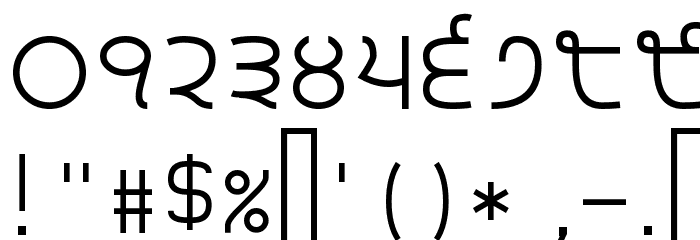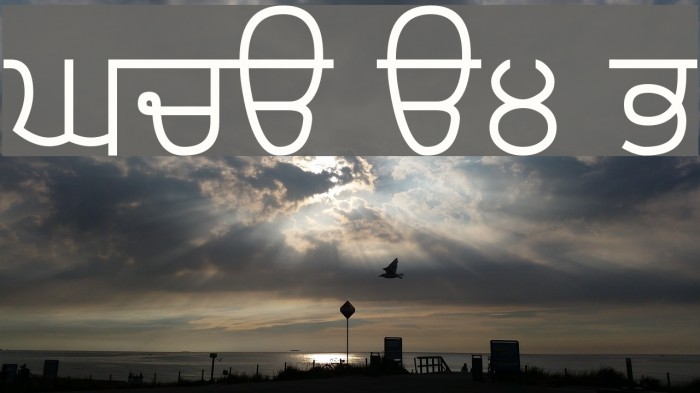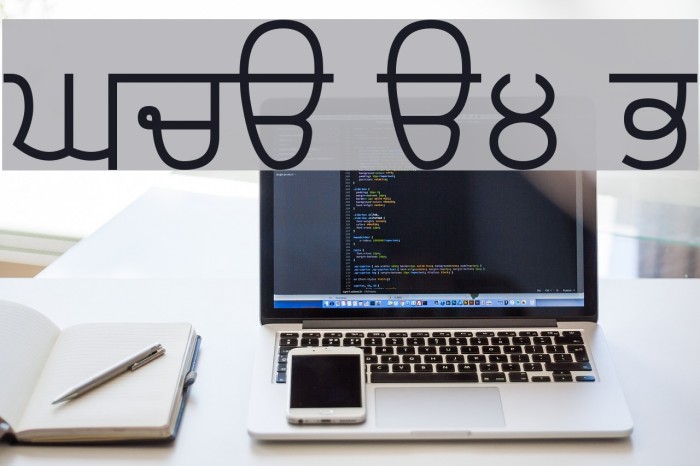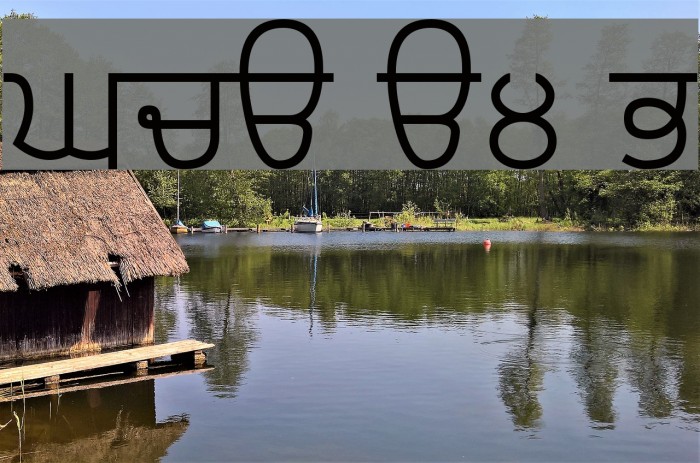
Gurvetica a4 Book Font
This font features a distinctive style with a modern and clean appearance, characterized by its geometric shapes and consistent line thickness. The characters are well-balanced, offering a harmonious blend of curves and straight lines. The font maintains a uniform stroke width, providing a sleek and professional look. Its design is both functional and aesthetically pleasing, making it suitable for a variety of applications. The special characters are crafted with the same attention to detail, ensuring a cohesive visual experience across all glyphs.
A modern, geometric font with consistent line thickness and balanced design.
- Proposed Projects: Ideal for branding, signage, digital interfaces, and editorial design projects.